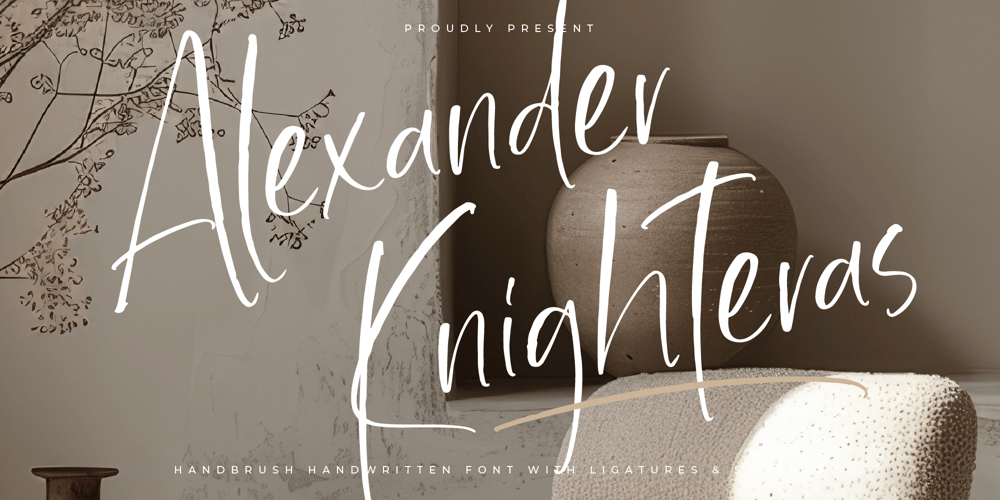
Alexander Knighteras
Alexander Knighteras font
Alexander Knighteras Font Family was designed by Dimas Alif Maulana and published by Integritype. Alexander Knighteras contains 2 styles and family package options. Alexander Knighteras – Modern Handwritten Font, from Integritype Studio, perfect for any project like: logos, branding projects, homewares designs, product packaging, mugs, quotes, posters, shopping bags, t-shirts, covers books, business cards, invitation cards, greeting cards, labels, photography, watermarks, special events and all your other luxury projects that require a premium taste.============================================================What’s Included:Alexander KnighterasWeb FontsLigatures, Alternate & SwashesWorks on PC & MacSimple installationAccessible in Adobe Illustrator, Adobe Photoshop, Adobe InDesign, even working in Microsoft Word.PUA Encoded Characters – Fully accessible without additional design software.The font includes support for 65 languages; Afrikaans, Albanian, Asu, Basque, Bemba, Bena, Breton, Catalan, Chiga, Cornish, Danish, Dutch, English, Faroese, Filipino, French, Friulian, Galician, German, Gusii, Indonesian, Irish, Italian, Kabuverdianu, Kalenjin, Kinyarwanda, Luo, Luxembourg, Luyia, Machame, Makhuwa-Meetto, Makonde, Malagasy, Manx, Morisyen, North Ndebele, Norwegian Bokmål, Nynorsk Norwegian, Nyankole, Oromo, Portuguese, Quechua, Romansh, Rombo, Rundi, Rwa, Samburu, Sango , Sangu, Scottish Gaelic, Sena, Shambala, Shona, Soga, Somali, Spanish, Swahili, Swedish, Swiss, German, Taita, Teso, Uzbek (Latin), Volapük, Vunjo, Zulu,============================================================